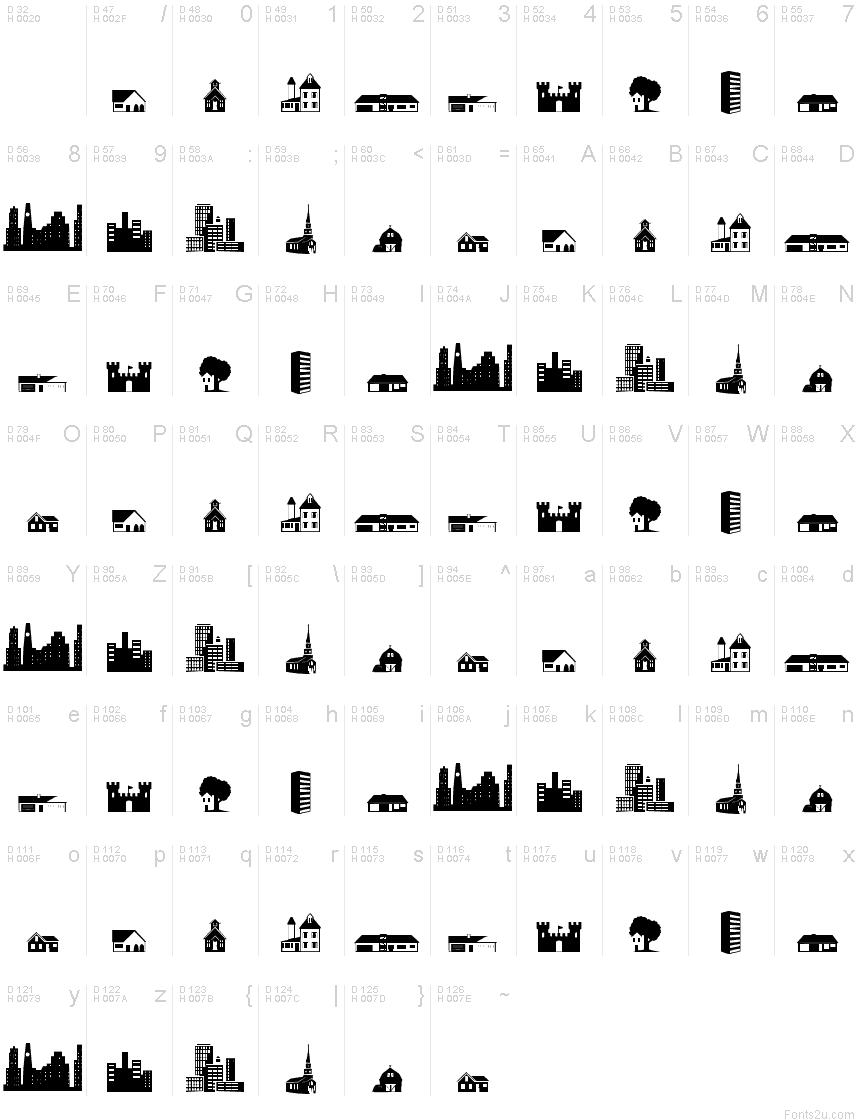
Little City 2000
Little City 2000 by Heather Daniels is a free cityscape dingbat font centered on simple urban silhouettes rather than isolated symbols. The repeated blocks of towers, apartments, garages, and low houses give the set a steady skyline rhythm, with flat black shapes and small window grids doing most of the visual work.
It makes sense for neighborhood flyers, real estate mailers, school project headers, scrapbook pages, and city-themed party decor where a row of buildings can frame the layout without turning into clip art clutter. Because the forms stay pared back and consistent, the font is especially handy for borders, dividers, and title accents that need an unmistakable town setting.